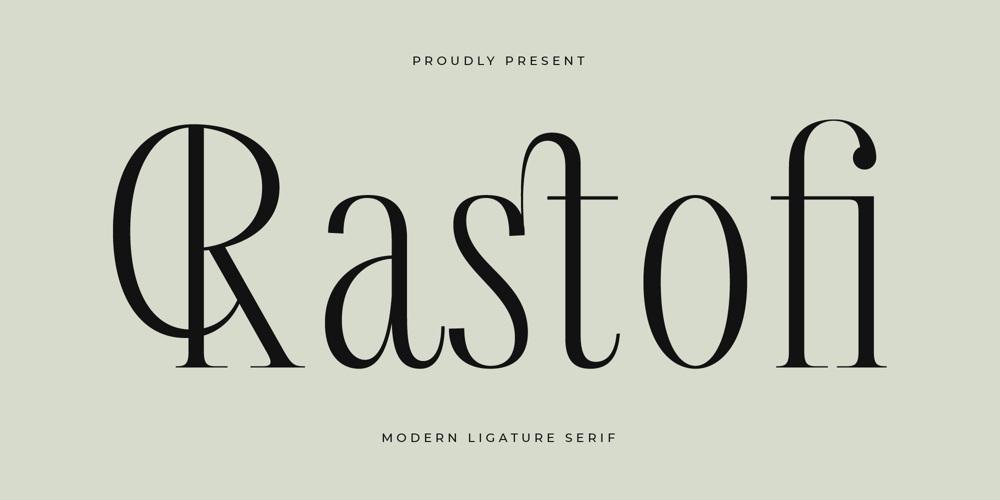
Rastofi Font Family was designed by Heru Utama Putra and published by Letterena Studios. Rastofi contains 2 styles and family package options. Rastofi is a stylish serif font that effortlessly blends classic sophistication with contemporary finesse. Its meticulously crafted letterforms, adorned with subtle details, exude timeless elegance. Ideal for projects that demand a refined and versatile typeface, Rastofi adds a distinctive touch of grace and sophistication to your designs.